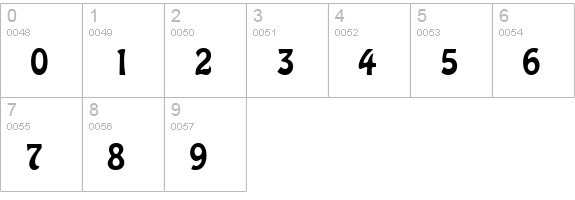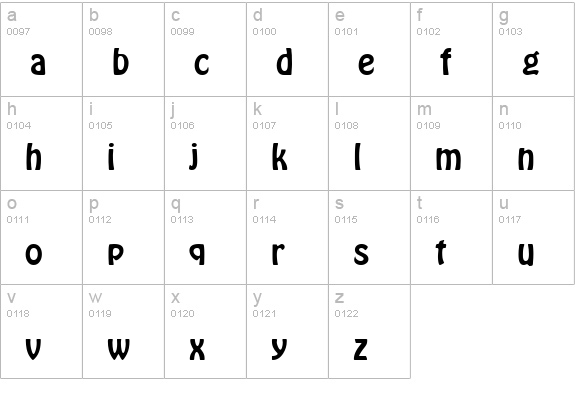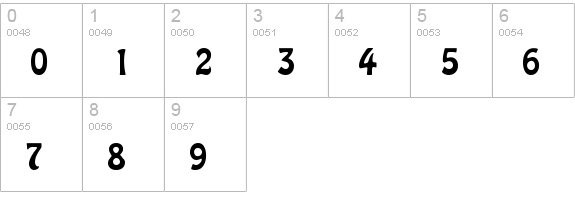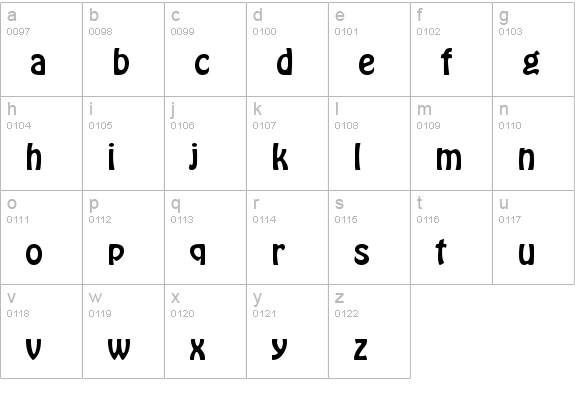
QTHoboken Regular Font Details
QTHoboken Regular is the standard, neutral variant in the QTHoboken typeface family \xE2\x80\x94 well suited to general body text, paragraphs, and standard typographic work.
QTHoboken Regular font is a delightful and versatile typeface that effortlessly combines elegance and readability. It is the perfect choice for a wide range of design projects, whether it be for print or digital media. This font features a harmonious balance between classic and modern elements, making it suitable for various contexts. Its clean and polished letterforms exude professionalism, while its subtle curves and unique strokes add a touch of creativity and sophistication. With QTHoboken Regular font, your designs will stand out and captivate viewers, delivering your message with clarity and style. Whether used for branding, advertising, invitations, or any other creative endeavor, this font will bring a touch of class and professionalism to your work. And the best part? QTHoboken Regular font is available for free download at FontsMarket.com. You can easily access this font and incorporate it into your projects without any hassle. So why wait? Enhance your designs with this elegant and freely available typeface today.